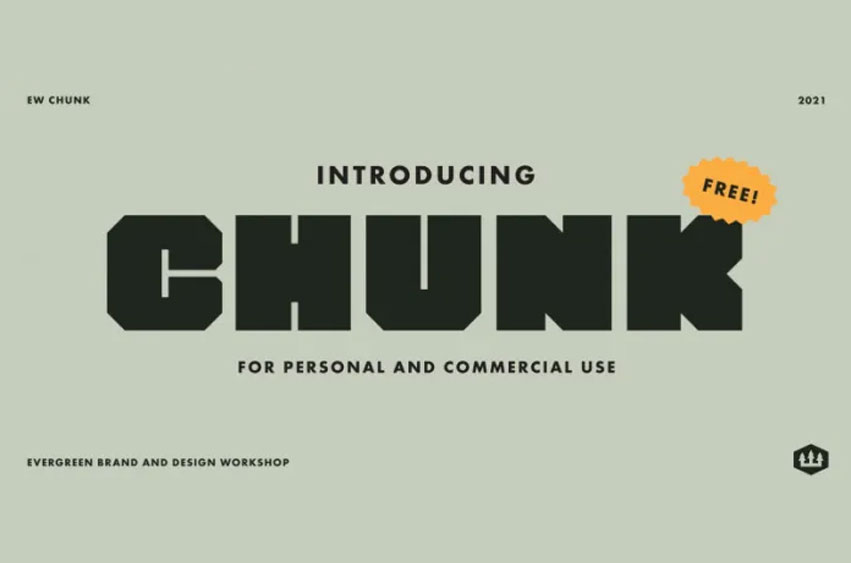
Chunk Font is a free display font that’s big, bold and just, with a style that is very different from the others.
It started its life as a part of a concept that never made it to the second round of revisions but it has been bought back to life and is now my first official font release.